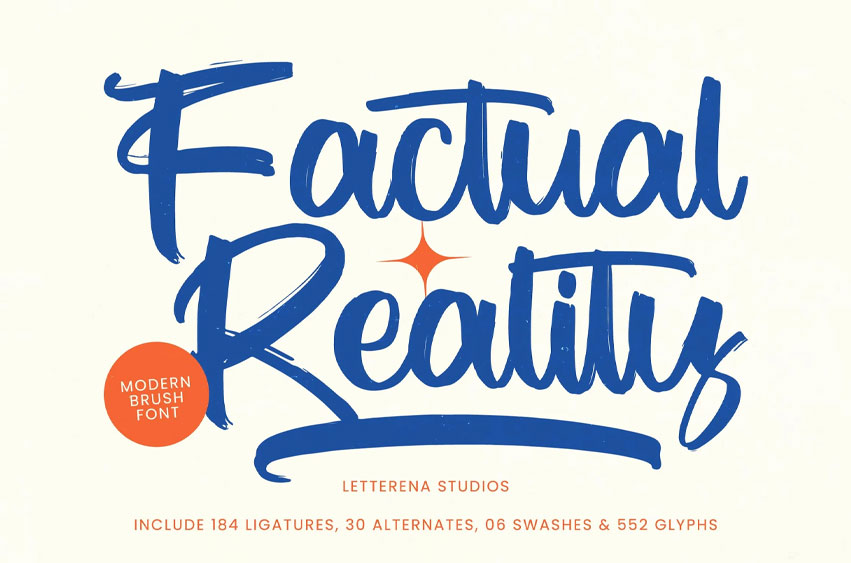
Factual Reality Font
Factual Reality Font is suitable to complement your digital and printed creative products. This font is perfect for posters, social media posts, branding, personal projects, etc.